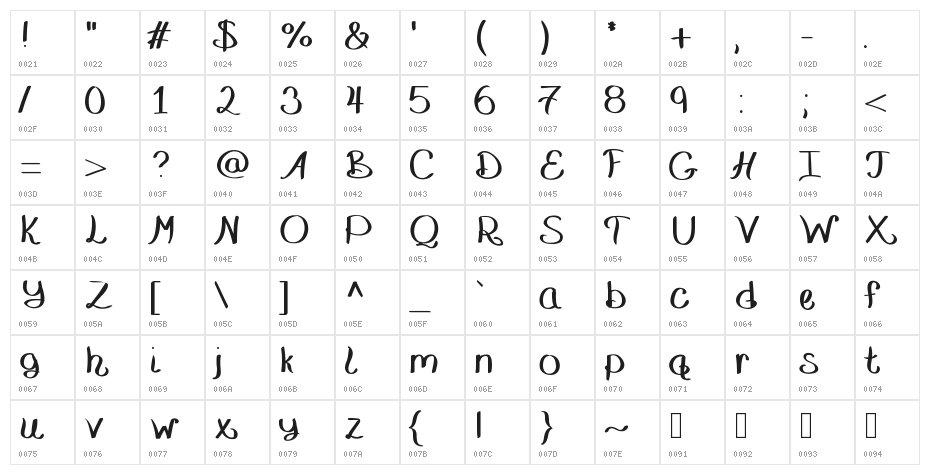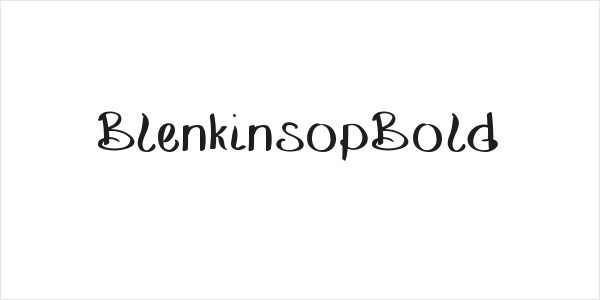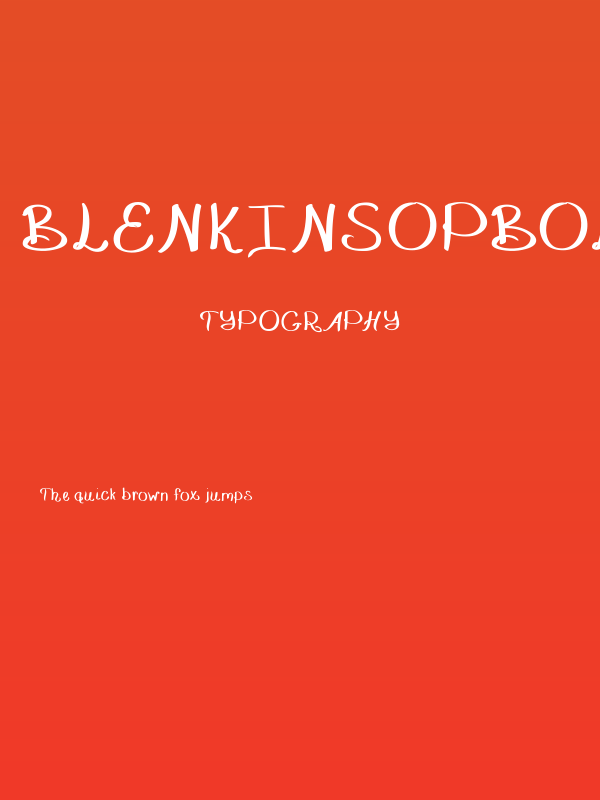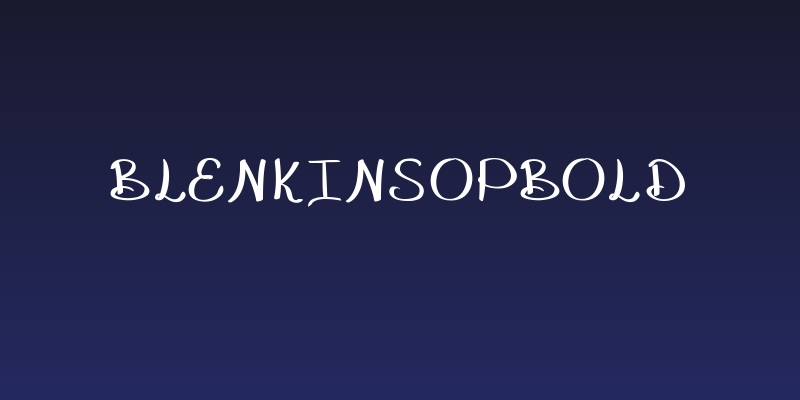
BlenkinsopBold Font
BlenkinsopBold Description
This font features a playful and whimsical script style with a bold presence. The letters are characterized by their fluid, hand-drawn appearance, with a slight slant that adds a dynamic feel. The uppercase letters are slightly more ornate, with unique flourishes and loops that give them a distinctive look. The lowercase letters maintain a consistent style, with rounded edges and a smooth flow. The numerals are clear and legible, matching the overall style of the alphabet. Special characters are creatively integrated, maintaining the font's lively and artistic aesthetic.